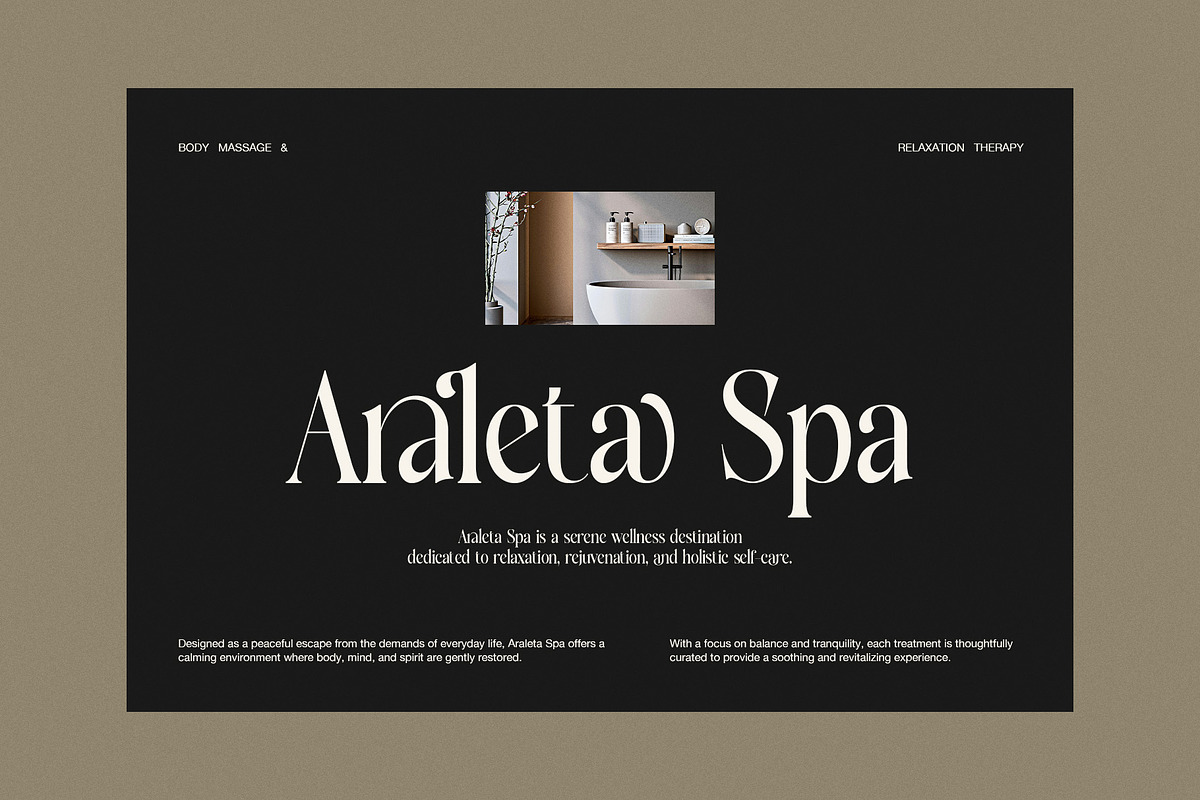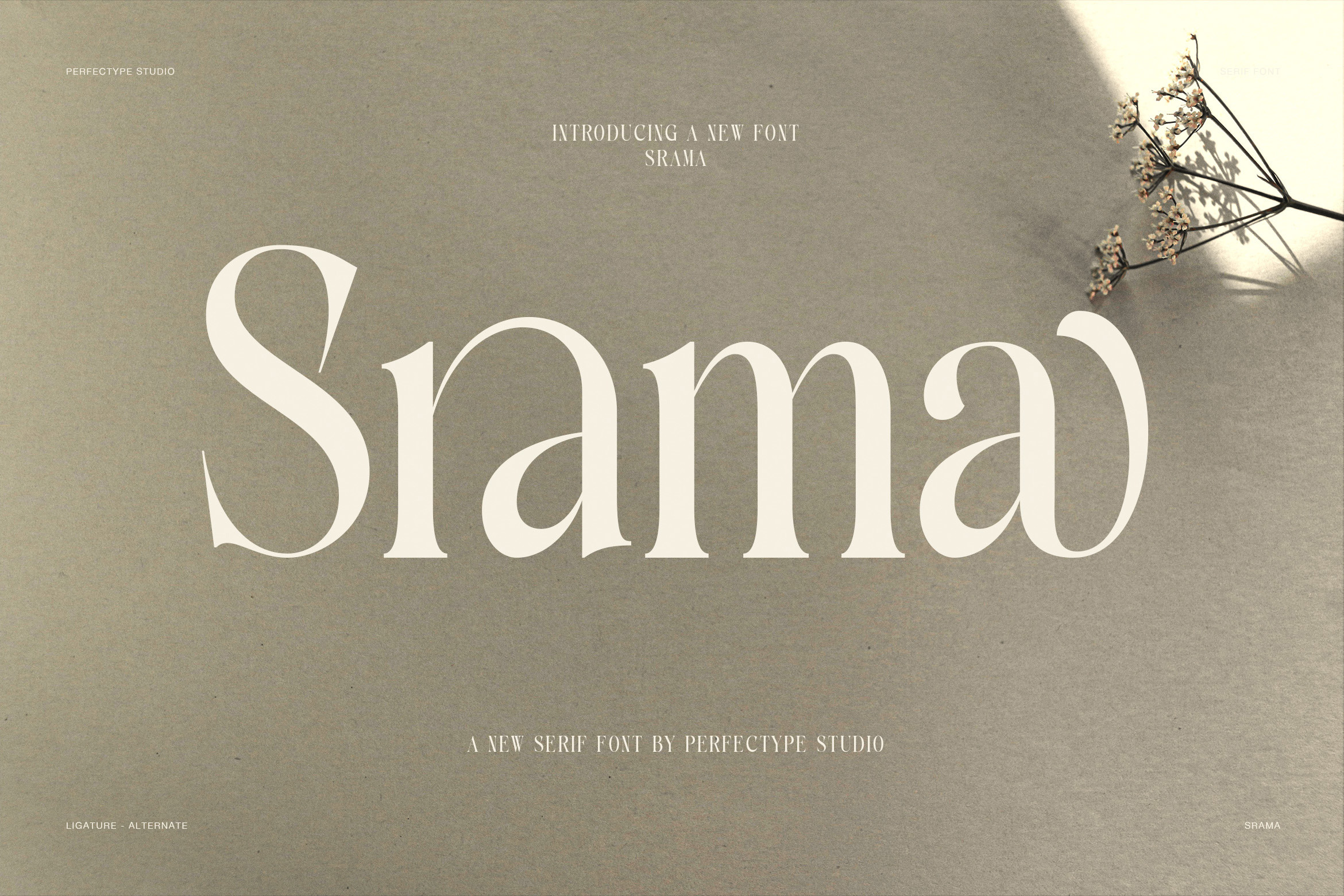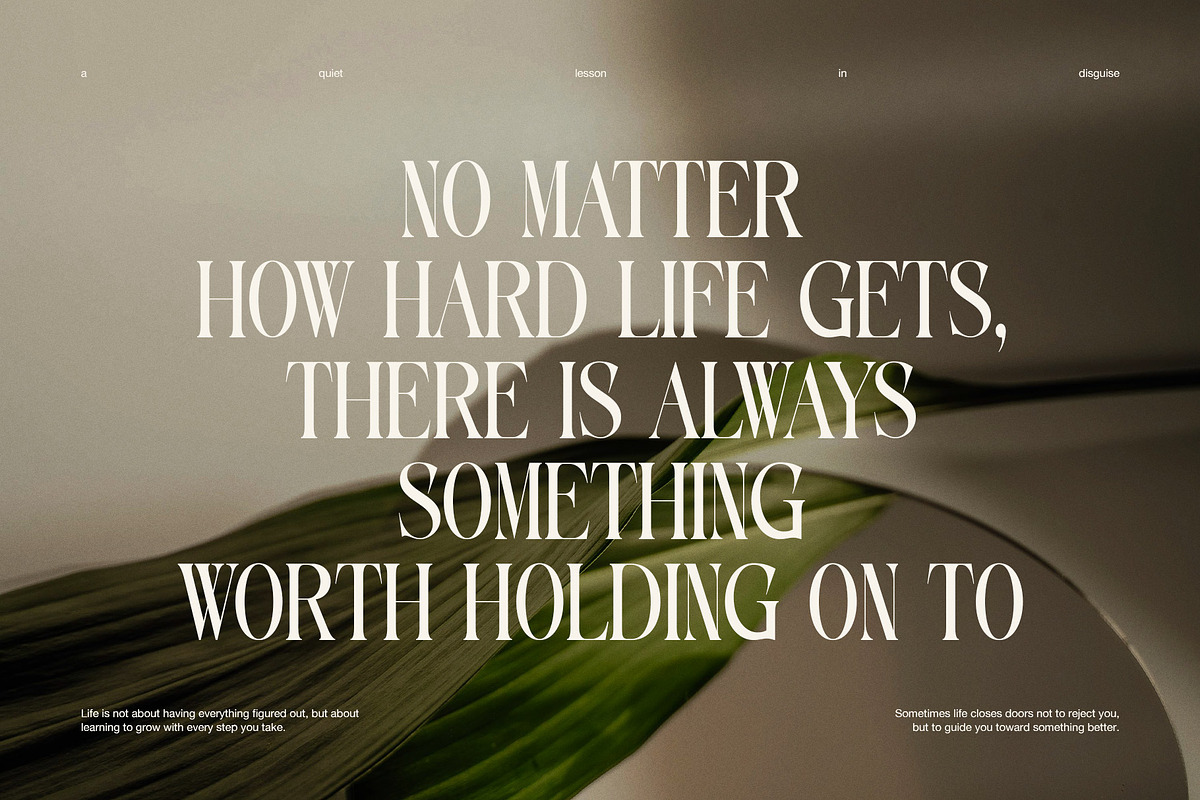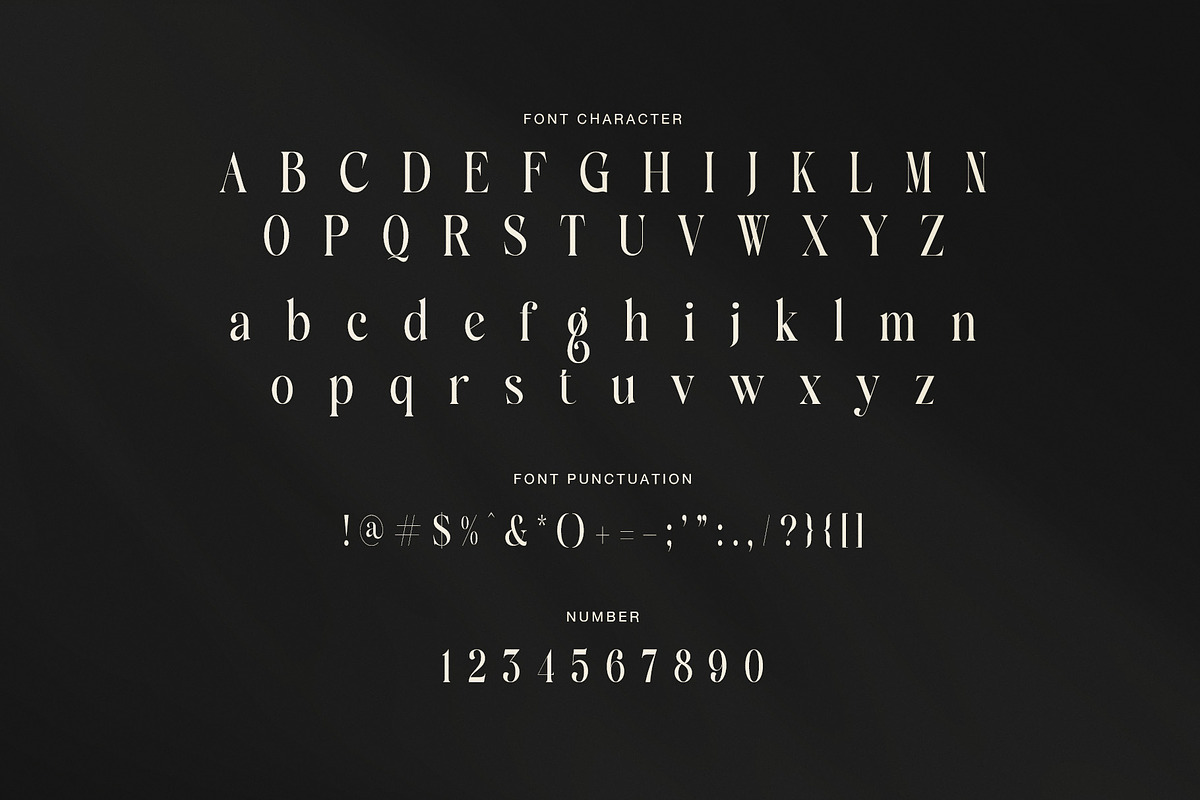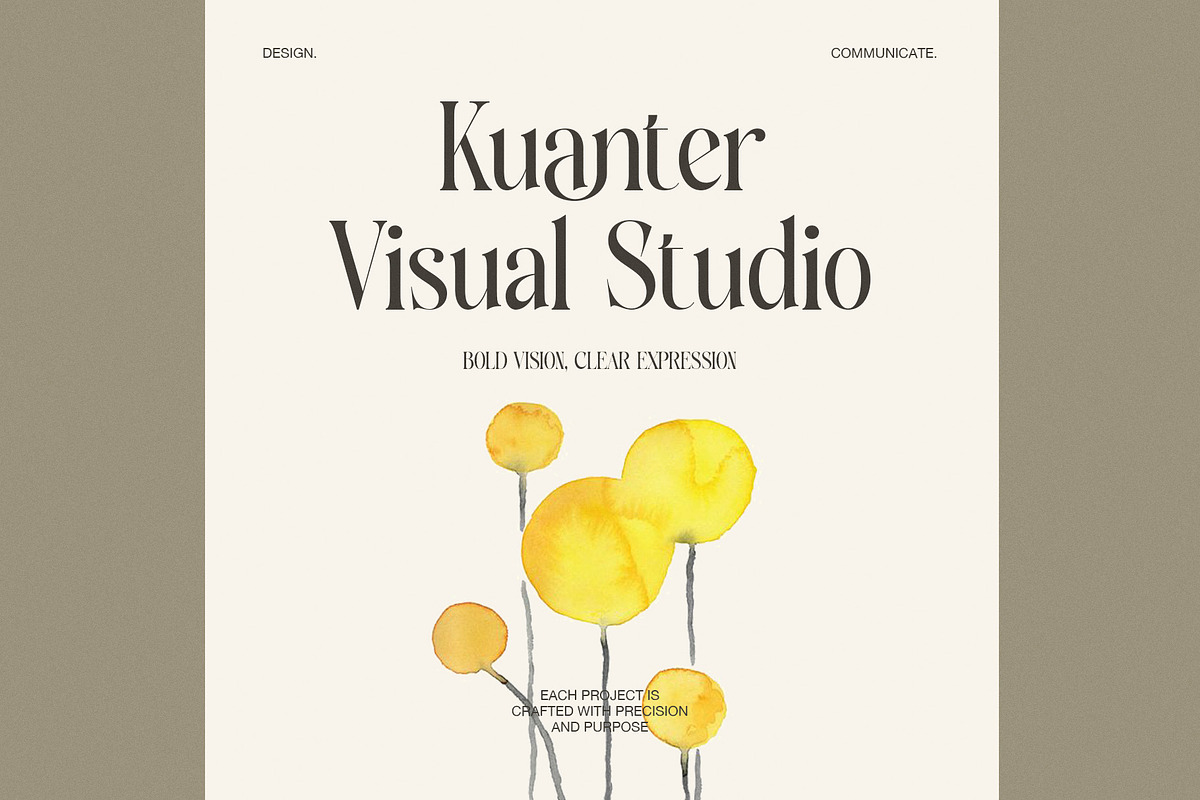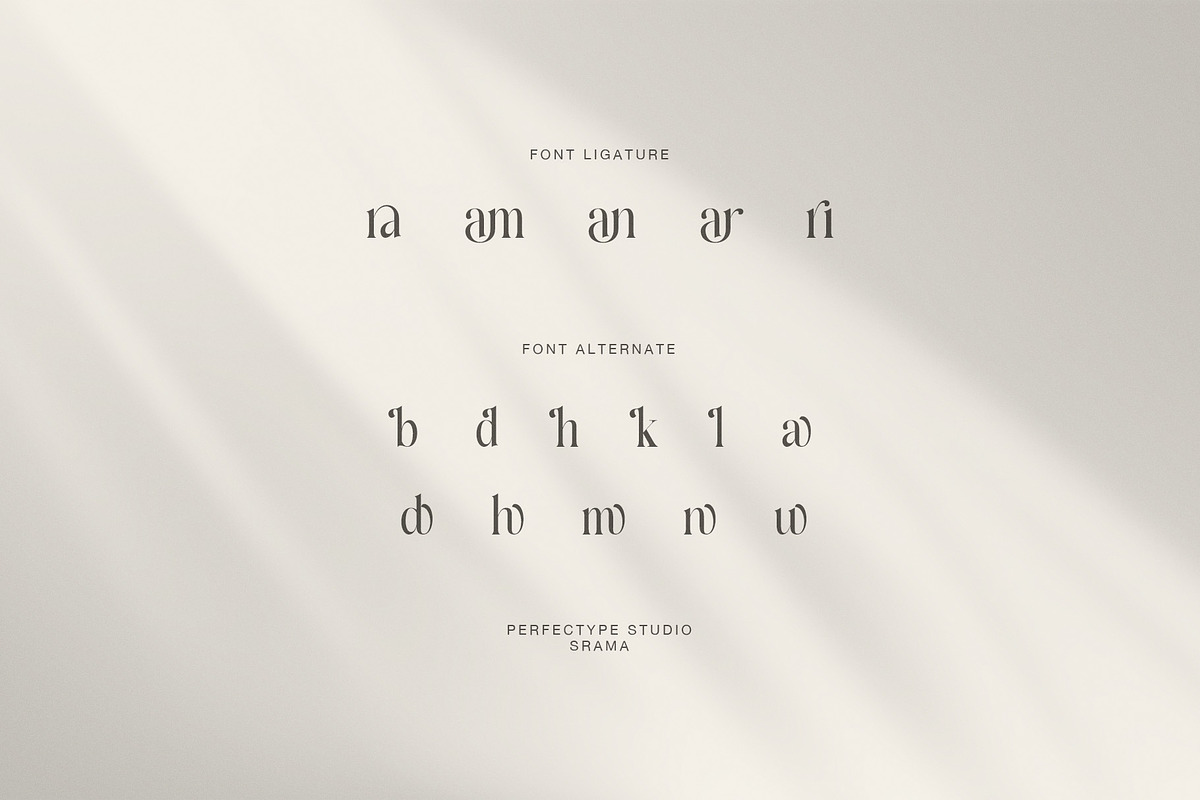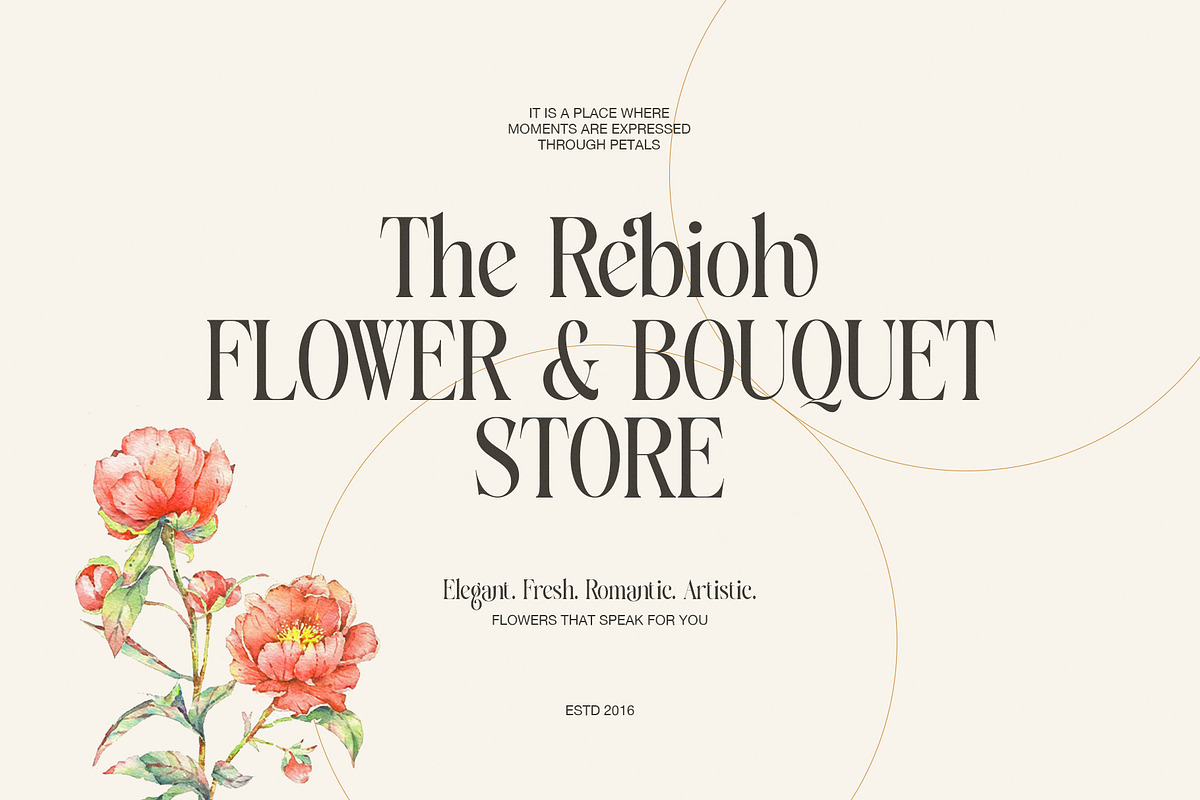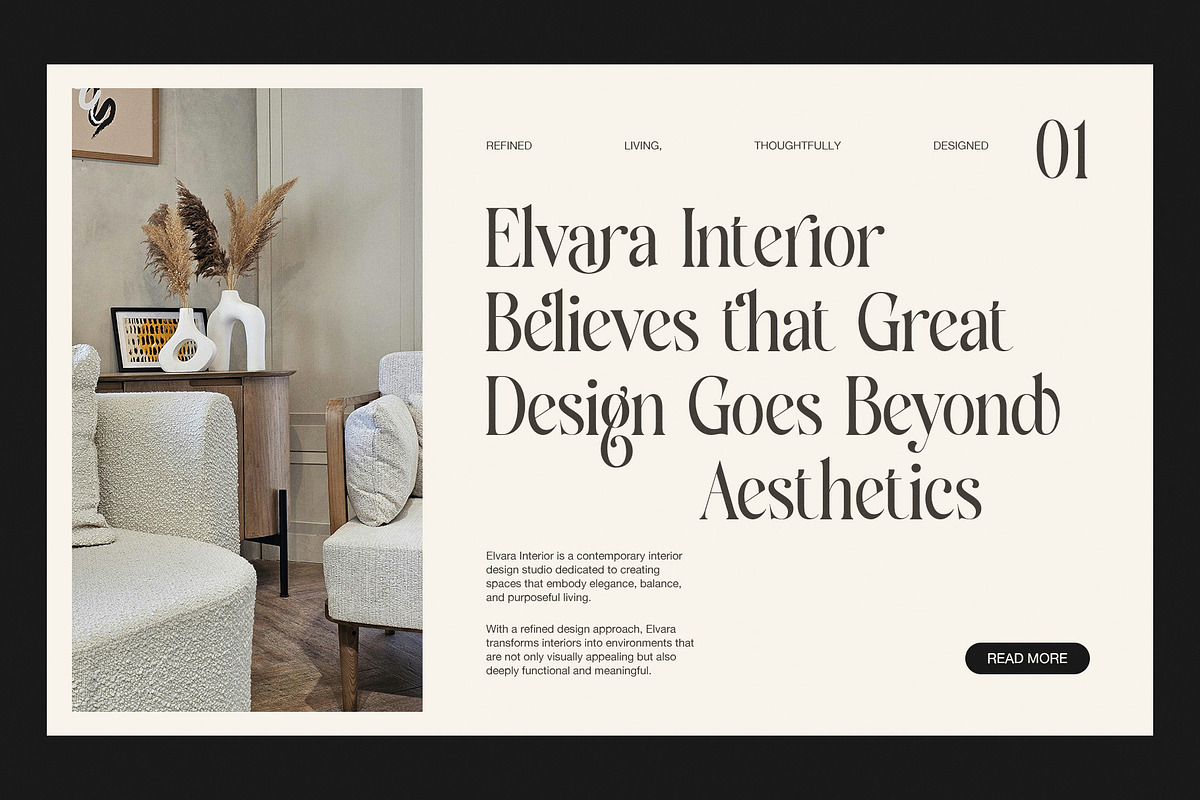
Srama Elegant Luxury Serif Font
Srama is an elegant luxury serif font designed for refined branding, calm layouts, and artistic visual design. It has tall letter shapes, soft curves, and graceful serif details that make every word feel clean and premium. Therefore, this font is a beautiful choice for designers who want a stylish serif with a gentle and modern mood.
Refined Serif Style
The shape of Srama feels slim, balanced, and expressive. Its high contrast strokes create a strong display look, while the smooth curves add warmth and charm. In addition, the stylish ligatures and alternates help your text look more custom. Because of this, Srama is perfect for brand names, headlines, quotes, posters, and elegant logo designs.
Best Design Uses
Srama works well for many creative projects. It can look soft and romantic in floral designs. However, it can also look clean and modern in architecture, interior, and wellness branding.
You can use Srama for:
Luxury logo design
Flower shop branding
Wedding invitations
Interior design studios
Spa and wellness brands
Beauty packaging
Editorial magazine titles
Visual studio branding
Lifestyle posters
Premium social media templates
Elegant Branding Benefits
Srama is especially strong for large display text. Its thin details and clean spacing help create a calm, polished look. Moreover, the font pairs well with soft cream tones, natural paper textures, muted green, warm gray, black, and minimal layouts. As a result, your design can feel more refined without using too many extra elements.
Modern Display Character
Use Srama when you need an elegant luxury serif font that feels graceful, natural, and timeless. Its ligatures add a special touch, while its alternates give each design more personality. Therefore, Srama is a great choice for premium brands that want beauty, clarity, and a quiet sense of luxury.